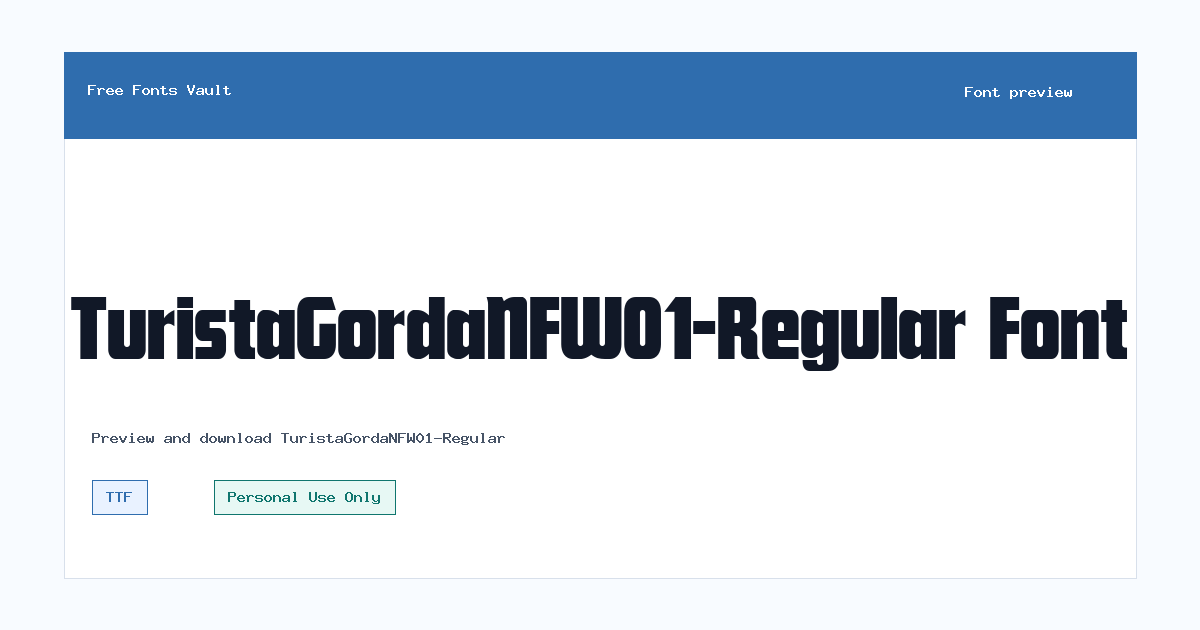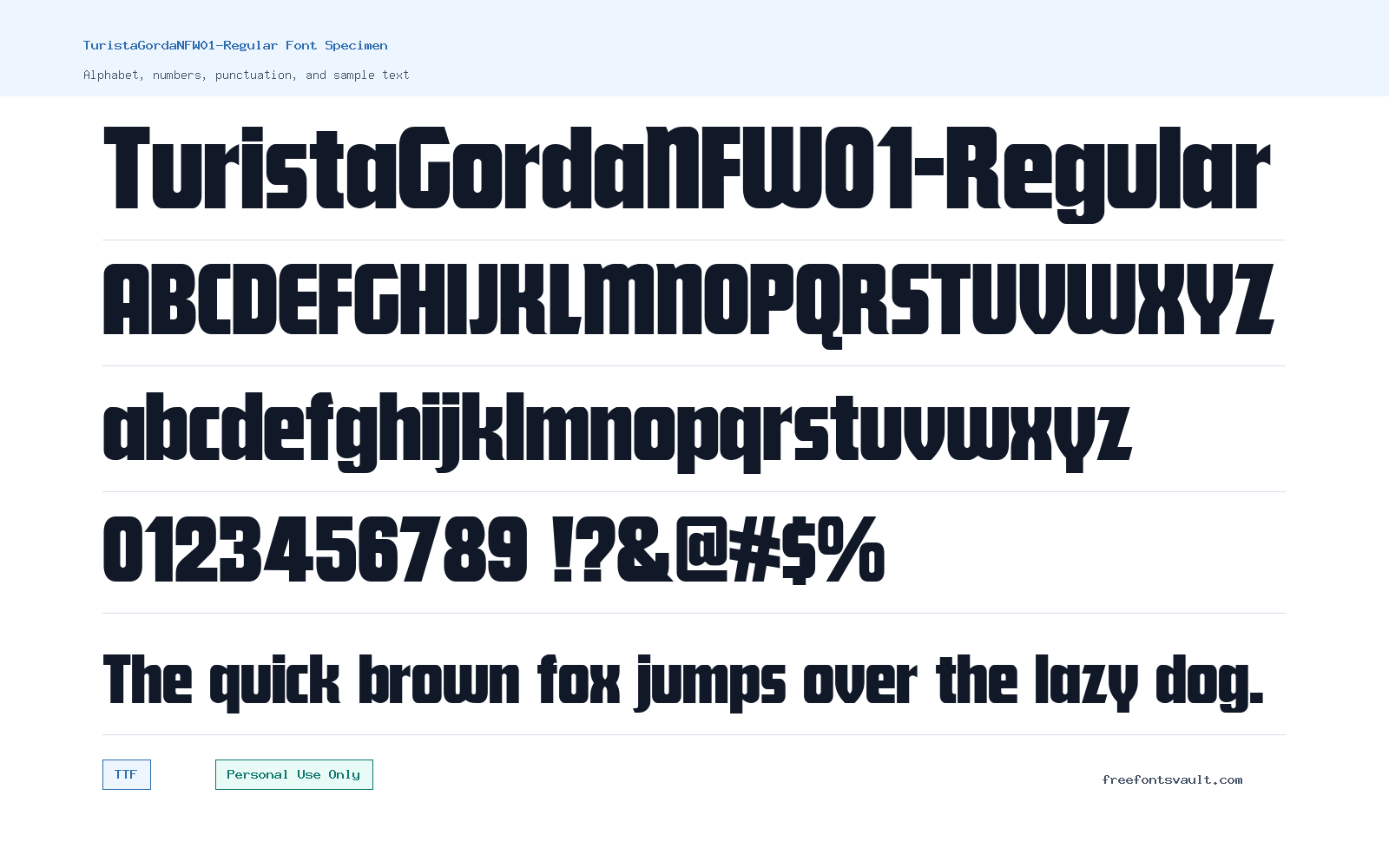
TuristaGordaNFW01-Regular
TuristaGordaNFW01-Regular Font
• Designer Nick Curtis
• Foundry Nick's Fonts
Turista Gorda NF Regular is a heavy display typeface with tall, solid letters and a strong poster-like feel. It is best used where the text needs to stand out quickly.
About Turista Gorda NF Regular
Turista Gorda NF Regular has a bold, compact look with thick vertical strokes, tight spacing, and squared-off curves. The letters feel sturdy rather than delicate, so the font works better for short words, names, labels, and headline settings than for long reading text.
• Heavy display letterforms suited to large, attention-grabbing text
• Posters, signs, event titles, and bold web headings
• Logotypes, apparel graphics, stickers, and short display phrases
Turista Gorda NF Regular is credited to Nick Curtis and Nick's Fonts.
For the cleanest result, keep text short, use it at display sizes, and check spacing around narrow letters and numbers. It can work well as a bold accent font paired with a simpler sans serif for body copy. Because TuristaGordaNFW01-Regular has a strong display character, check the final size early. It can be useful for playful titles and poster words, but a simpler companion font will keep captions, dates, and longer notes easier to read.
Is Turista Gorda NF Regular good for body text?
No. Its heavy, tight shapes are better for headlines, logos, posters, and short labels. Use a simpler text font for paragraphs.